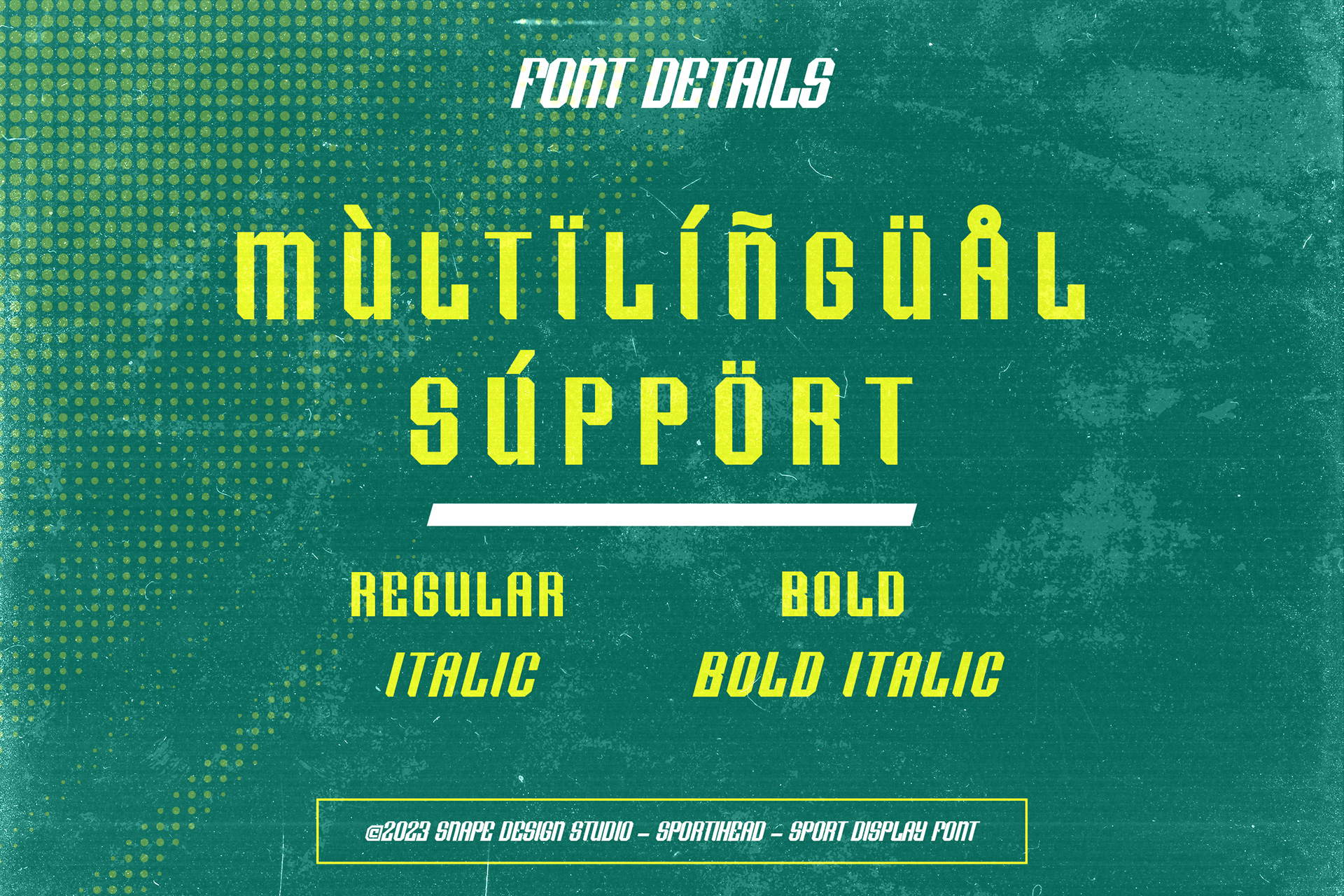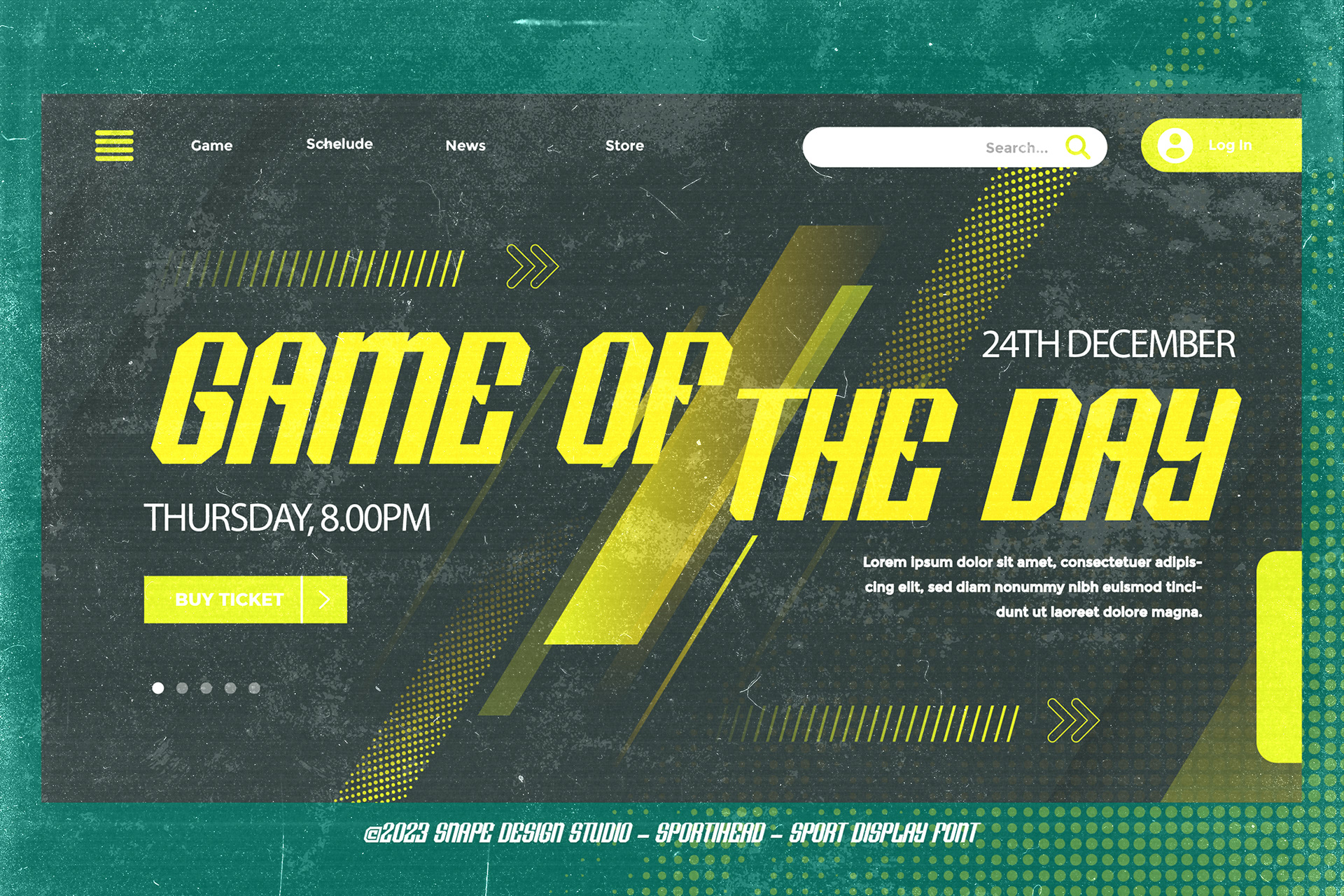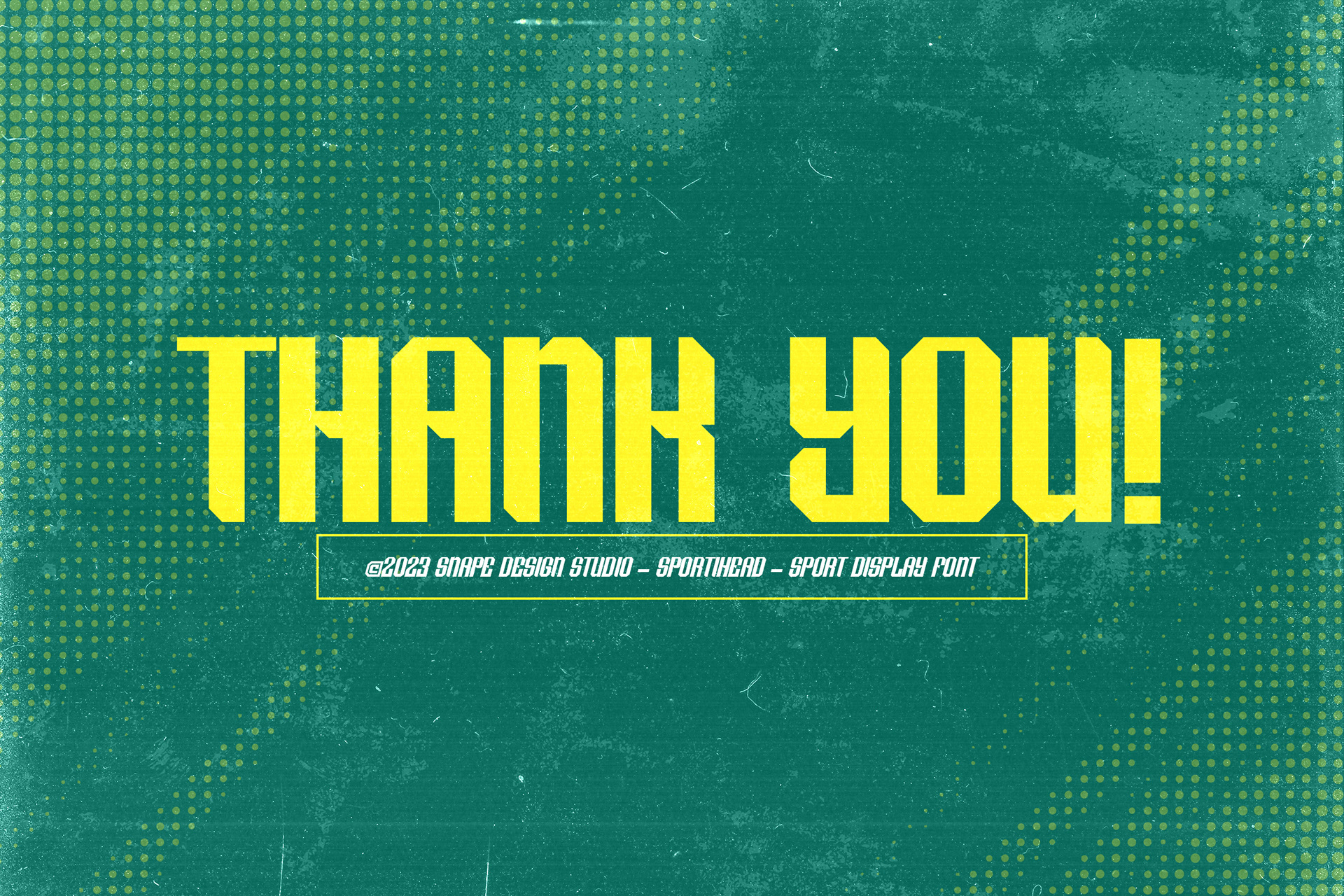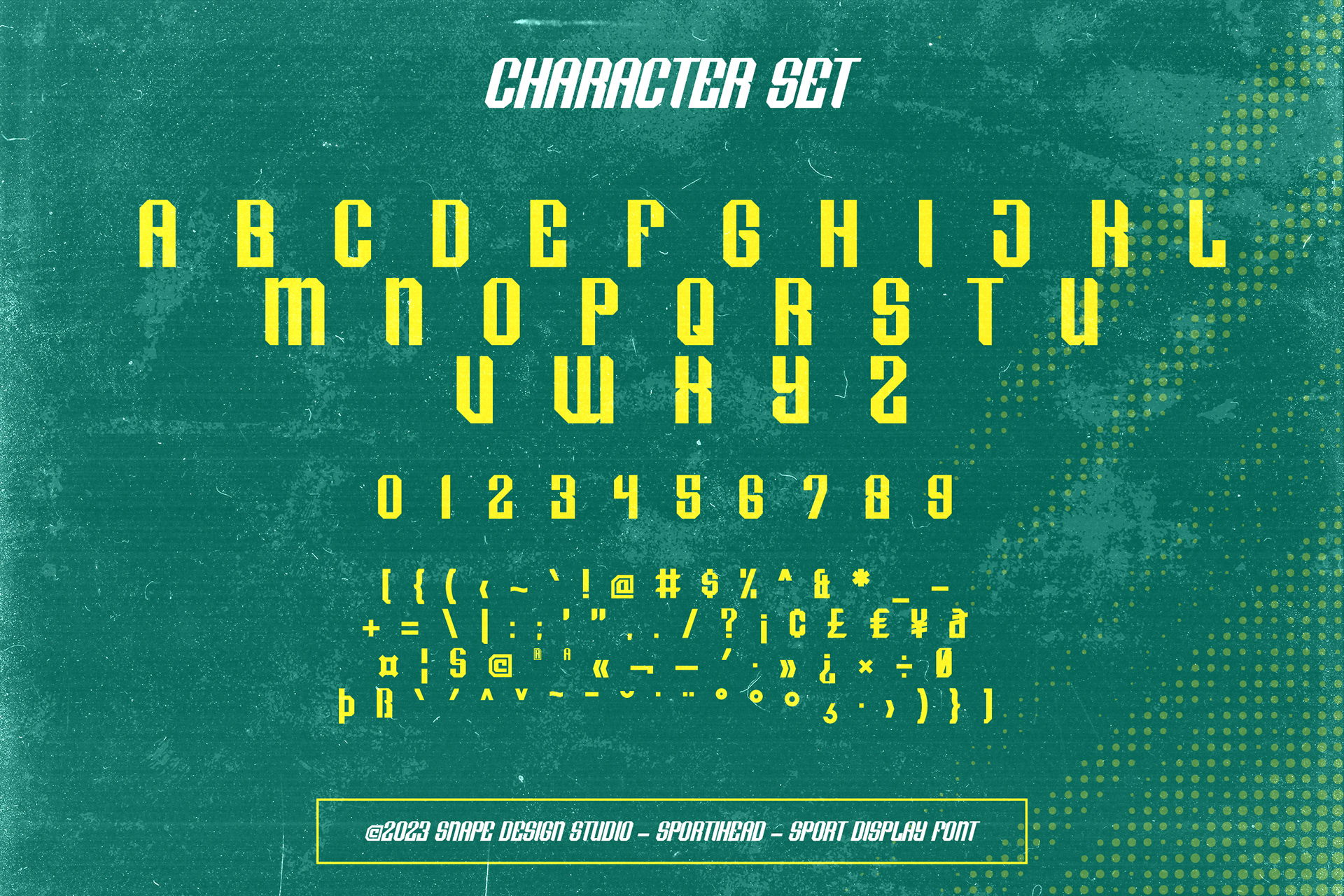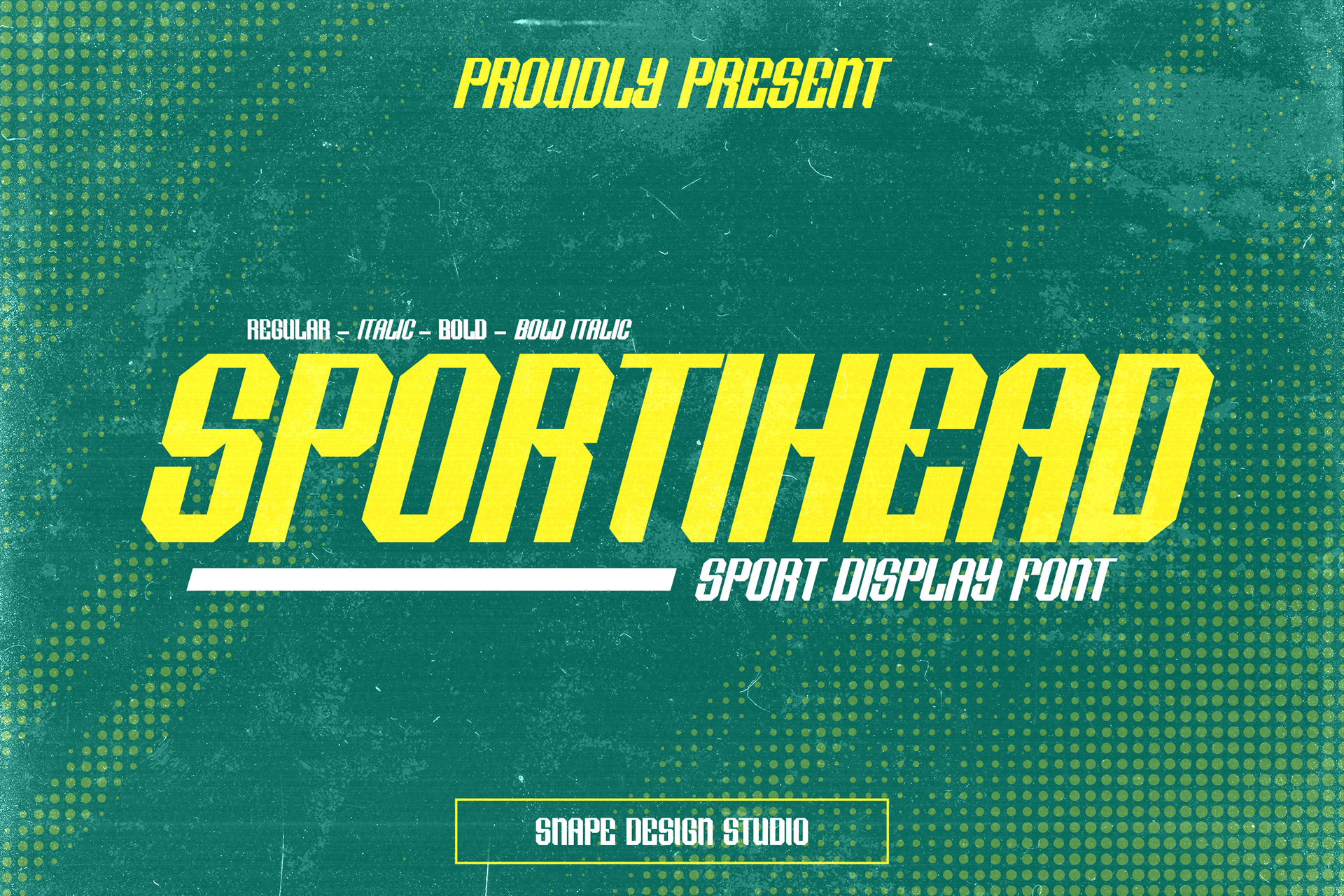
Sportihead is sport font, designed to draw attention and highlight any project that requires a bold feel, look powerful, created to add a vibrant touch to your sport-inspired designs. Suitable for sport design, team, jersey, league, movie, documenter, film, logo, poster, game, book cover, headlines, title and many more projects. Add this font to your creative ideas and notice how it will make them stand out!
Sportihead - Sport Font design by Ario Sabrang Damar publish under Snape Design Studio